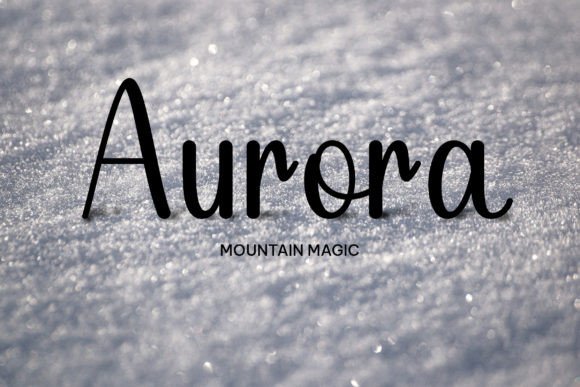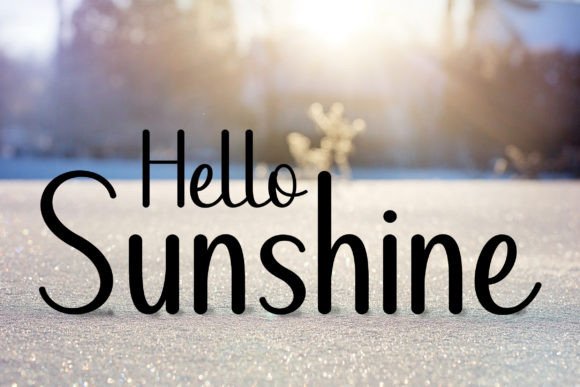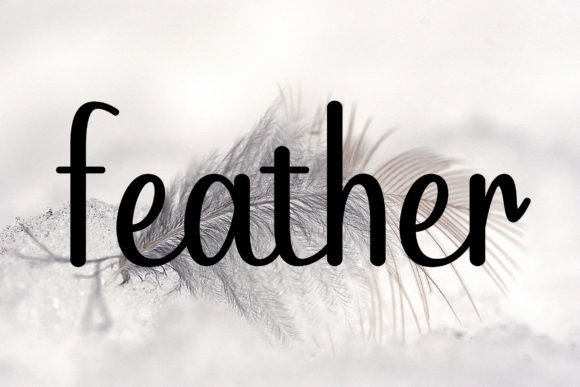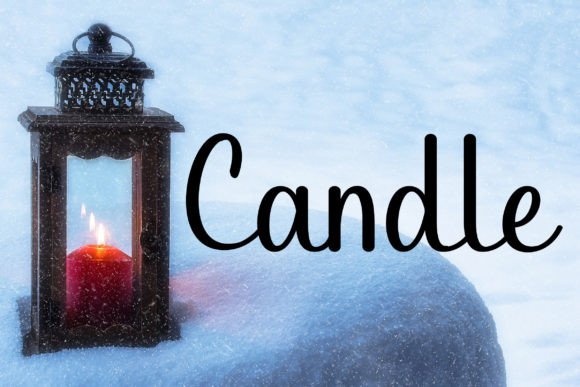
Dallian Font: The Sweet and Casual Handwritten Font for Designers and Crafters
Are you a designer or crafter looking for a font that can add a touch of sweetness and casualness to your designs? Look no further than Dallian Font! This beautiful handwritten font is perfect for creating eye-catching logos, branding, and quotes that will make your design come alive.
What is Dallian Font?
Dallian Font is a sweet and casual handwritten font that is designed to add a personal touch to your designs. Every letter has a unique and beautiful touch, making it perfect for creating designs that stand out from the crowd. The font is highly legible and can be used for a variety of design projects, from logos and branding to quotes and social media graphics.
Features of Dallian Font
So, what makes Dallian Font so special? Here are some of its key features:
- Unique and Beautiful Touch: Every letter in Dallian Font has a unique and beautiful touch, making it perfect for creating designs that are both personal and eye-catching.
- Sweet and Casual: Dallian Font has a sweet and casual feel to it, making it perfect for designs that require a friendly and approachable tone.
- Highly Legible: The font is highly legible, making it easy to read and understand, even at small sizes.
- Perfect for Logos and Branding: Dallian Font is perfect for creating eye-catching logos and branding materials that will help your business stand out.
- Great for Quotes and Social Media Graphics: The font is also great for creating quotes and social media graphics that will engage and inspire your audience.
Why Choose Dallian Font?
So, why should you choose Dallian Font for your design projects? Here are some reasons:
- Adds a Personal Touch: Dallian Font adds a personal touch to your designs, making them more relatable and engaging.
- Versatile: The font is versatile and can be used for a variety of design projects, from logos and branding to quotes and social media graphics.
- High-Quality: The font is of high-quality, making it perfect for professional designs.
Here are some tips and tricks for using Dallian Font:
- Use it with Other Fonts: Dallian Font can be paired with other fonts to create a unique and interesting design.
- Experiment with Colors: Experiment with different colors to find the perfect combination that works with Dallian Font.
- Play with Sizes: Play with different font sizes to create visual interest and hierarchy in your design.
In conclusion, Dallian Font is a sweet and casual handwritten font that is perfect for designers and crafters looking to add a personal touch to their designs. With its unique and beautiful touch, high legibility, and versatility, Dallian Font is a great choice for creating eye-catching logos, branding, and quotes. So, download Dallian Font today and start creating stunning designs that will engage and inspire your audience!